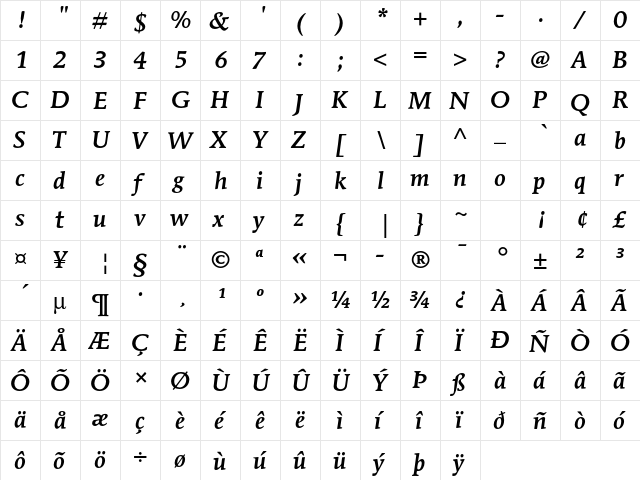
ITC Mendoza Roman Std Medium Italic Font Preview
ITC Mendoza Roman Std Medium Italic
ITC Mendoza Roman Std Medium Italic Font Details
| Style | Medium Italic |
| Designer | JosΠMendoza |
Design Context for ITC Mendoza Roman Std Typeface
ITC Mendoza Roman Std offers clean, dependable letterforms without strong stylistic allegiance, making it a practical choice for designers who need flexibility. Its italic angle brings a sense of urgency and motion to the letterforms.
Pro Tip: Use ITC Mendoza Roman Std for emphasis, pull quotes, and subheadings where its slanted energy can add rhythm to the layout.